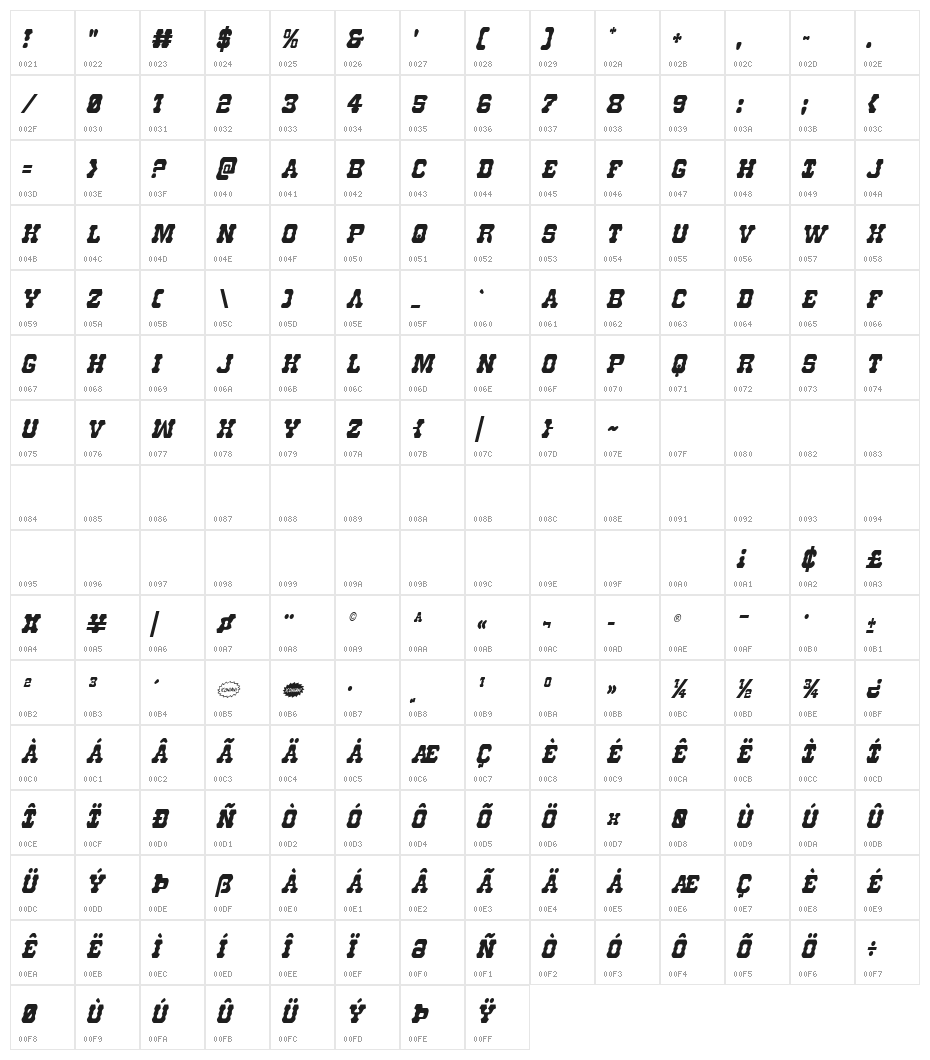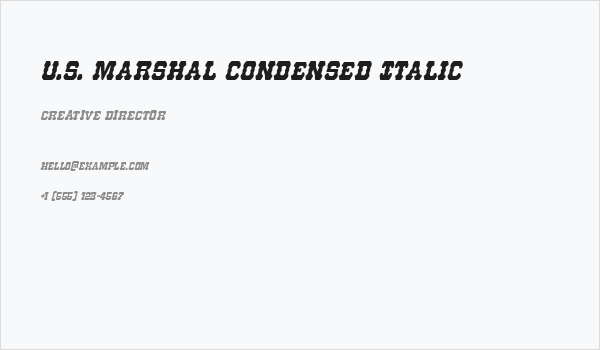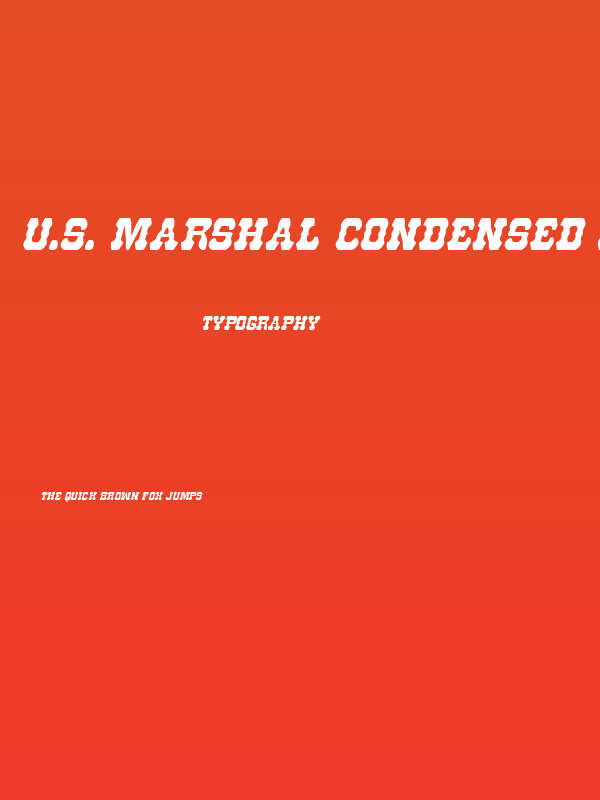
U.S. Marshal Condensed Italic Font
U.S. Marshal Condensed Italic Description
This font features a bold and condensed style with a distinct italic slant, giving it a dynamic and energetic appearance. The characters are robust and impactful, with thick strokes that create a strong visual presence. The condensed nature of the font allows for efficient use of space, making it suitable for headlines and titles. The italic angle adds a sense of motion and urgency, enhancing its suitability for attention-grabbing designs. The font includes a full set of uppercase letters, numbers, and a variety of special characters, ensuring versatility in design applications.
| Proposed Projects | Ideal for posters, banners, and branding materials that require a strong visual impact. |